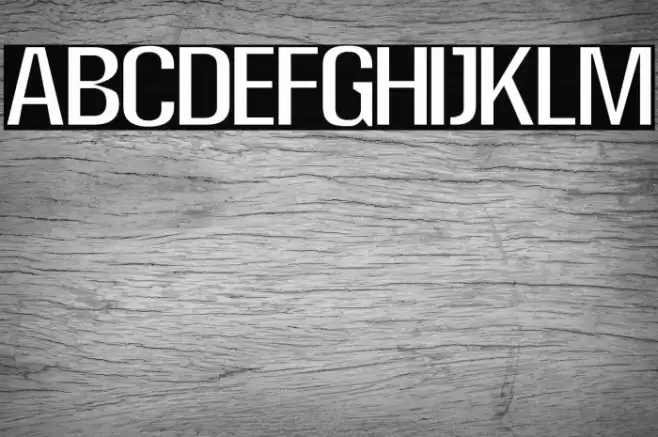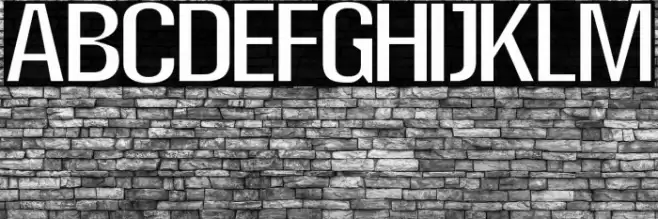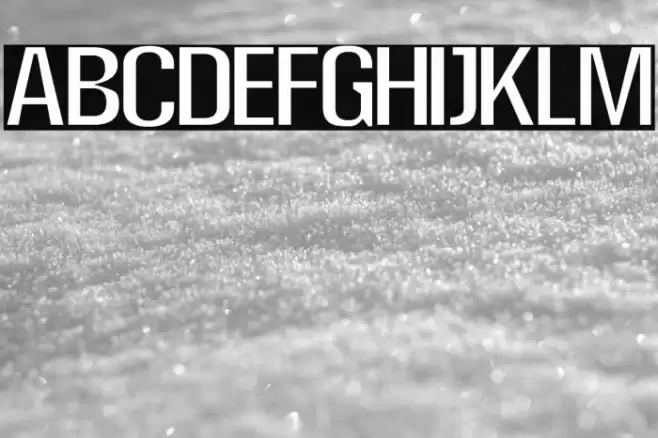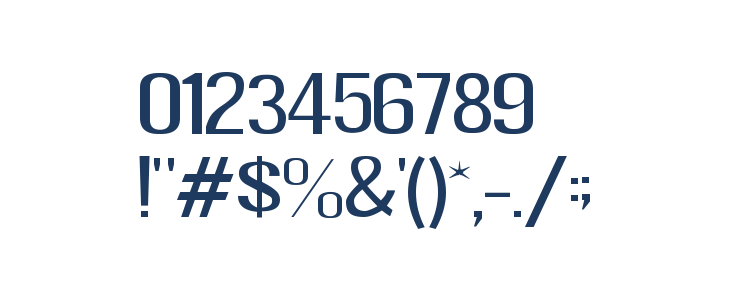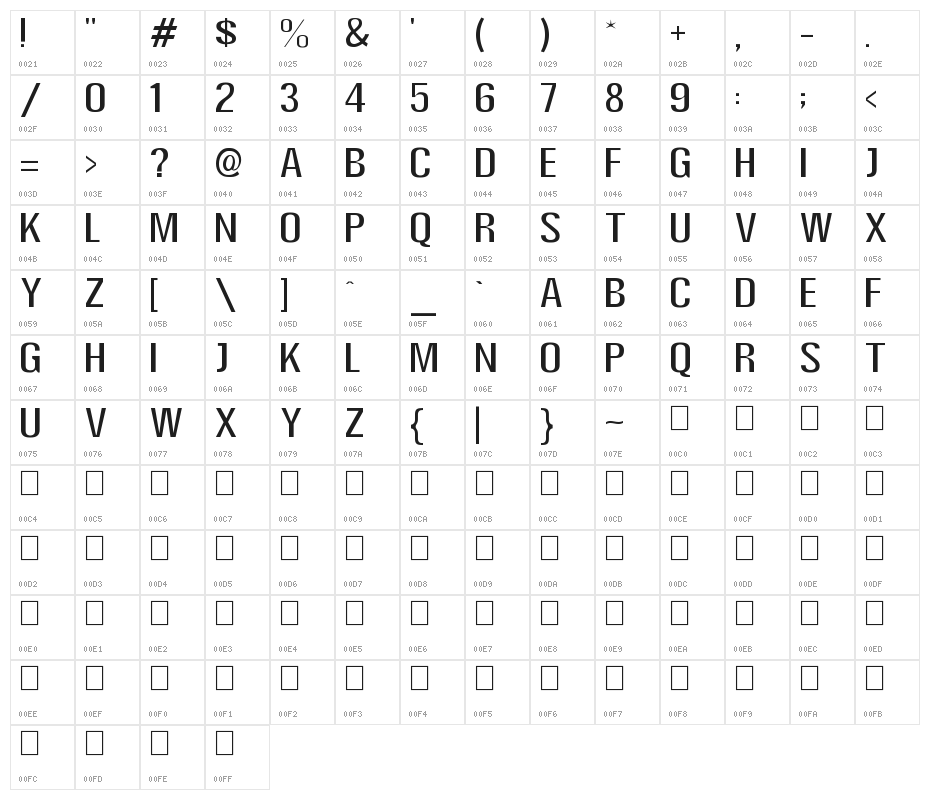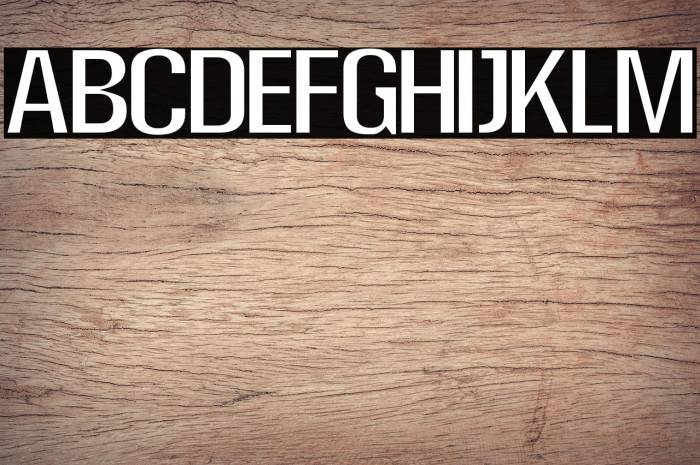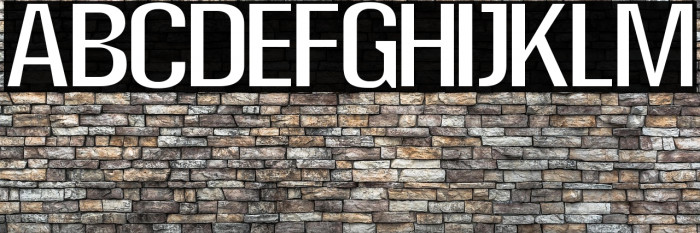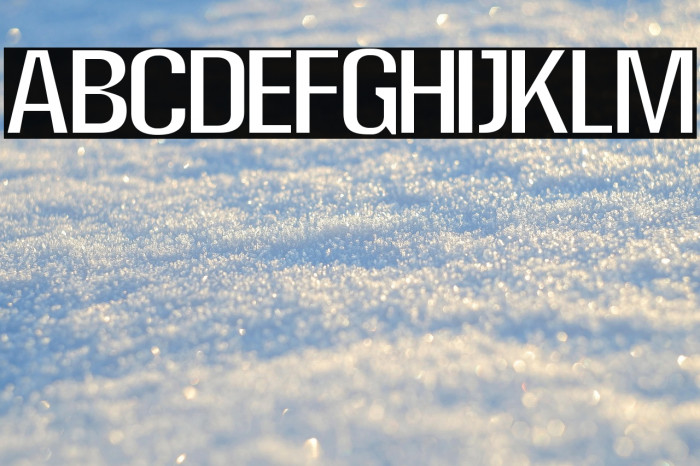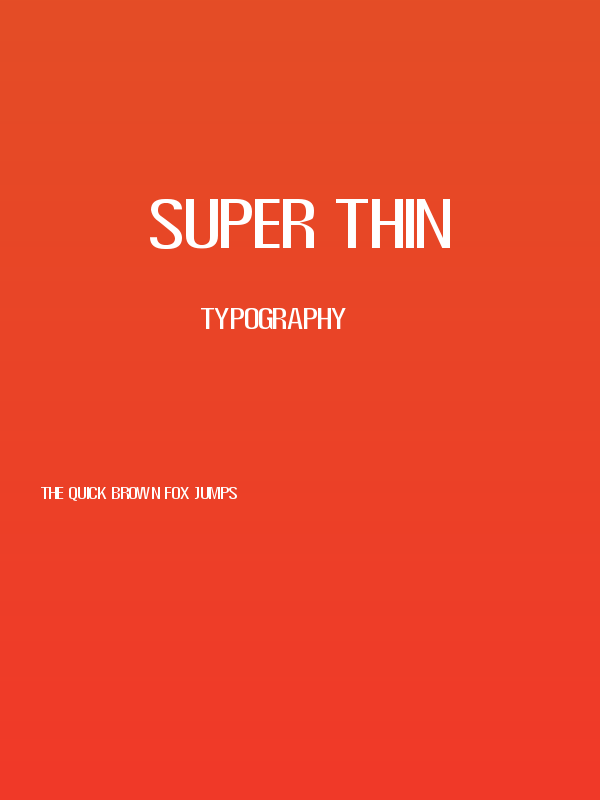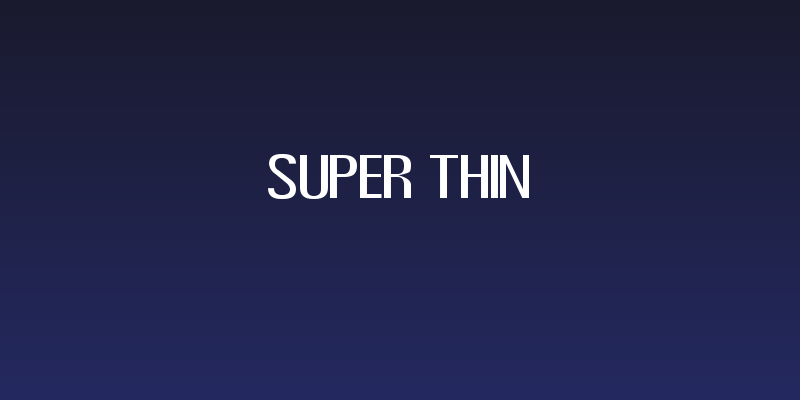
Super Thin Font
Super Thin Description
This font features a modern, sleek design with a strong emphasis on vertical lines and minimal curves. The characters are tall and narrow, giving an elongated appearance that is both elegant and contemporary. The uppercase and lowercase letters maintain a consistent style, with clean edges and a uniform stroke width that enhances readability. Numbers and special characters are designed to match the overall aesthetic, ensuring a cohesive look across all text elements. The font's simplicity and clarity make it ideal for use in digital and print media where a modern and professional appearance is desired.
A modern, sleek font with tall, narrow characters and uniform stroke width from Uncategorized fonts.
- Font: Super Thin
- Proposed Projects: Ideal for branding, advertising, digital media, and editorial design projects.